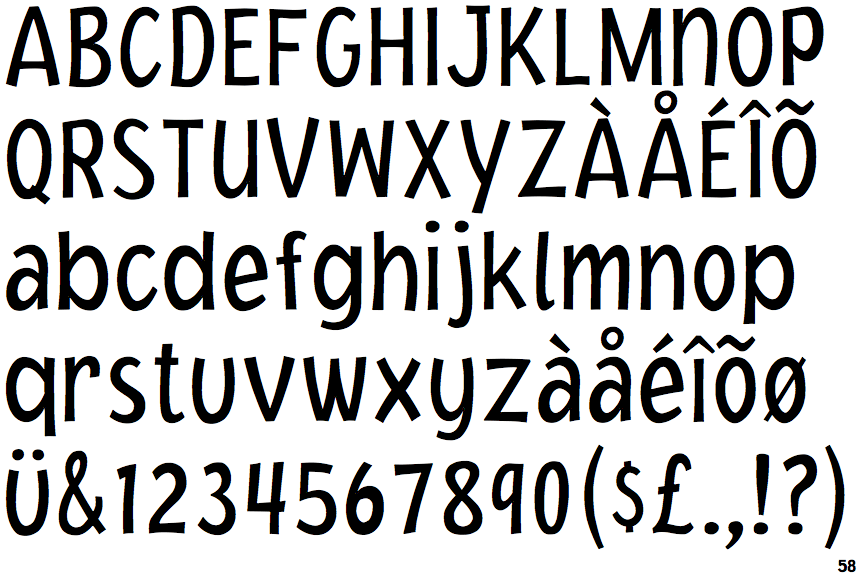
Jacoby Black Font
Jacoby Black Font - Discover the free jacoby icg black font at free font download ! Ideal for children's books, playful branding, posters, and informal invitations. Jacoby contains 12 styles and family package options. Download free and premium fonts. Davison and published by monotype. Installable on pc, mac, linux, ios, and android platforms. This font features bold, playful characters with a. Download jacoby icg black font. Fontsplace is the best place to download jacoby icg black for free. A bold and playful font with thick, irregular strokes.
Discover the free jacoby icg black font at free font download ! Jacoby contains 12 styles and family package options. Installable on pc, mac, linux, ios, and android platforms. Download free and premium fonts. This font features bold, playful characters with a. A bold and playful font with thick, irregular strokes. Fontsplace is the best place to download jacoby icg black for free. Davison and published by monotype. Download jacoby icg black font. Jacoby font family was designed by calvin glenn, m.
Discover the free jacoby icg black font at free font download ! Download jacoby icg black font. Jacoby contains 12 styles and family package options. A bold and playful font with thick, irregular strokes. This font features bold, playful characters with a. Fontsplace is the best place to download jacoby icg black for free. Download free and premium fonts. Ideal for children's books, playful branding, posters, and informal invitations. Installable on pc, mac, linux, ios, and android platforms. Davison and published by monotype.
Download free and premium fonts. This font features bold, playful characters with a. Jacoby contains 12 styles and family package options. Ideal for children's books, playful branding, posters, and informal invitations. Jacoby font family was designed by calvin glenn, m.
Davison and published by monotype. Jacoby font family was designed by calvin glenn, m. A bold and playful font with thick, irregular strokes. Ideal for children's books, playful branding, posters, and informal invitations. Download free and premium fonts.
Installable on pc, mac, linux, ios, and android platforms. A bold and playful font with thick, irregular strokes. Davison and published by monotype. Download free and premium fonts. Jacoby font family was designed by calvin glenn, m.
Installable on pc, mac, linux, ios, and android platforms. Ideal for children's books, playful branding, posters, and informal invitations. This font features bold, playful characters with a. Jacoby font family was designed by calvin glenn, m. Jacoby contains 12 styles and family package options.
Installable on pc, mac, linux, ios, and android platforms. Download free and premium fonts. A bold and playful font with thick, irregular strokes. Discover the free jacoby icg black font at free font download ! This font features bold, playful characters with a.
Jacoby font family was designed by calvin glenn, m. A bold and playful font with thick, irregular strokes. This font features bold, playful characters with a. Discover the free jacoby icg black font at free font download ! Ideal for children's books, playful branding, posters, and informal invitations.
Discover the free jacoby icg black font at free font download ! Fontsplace is the best place to download jacoby icg black for free. A bold and playful font with thick, irregular strokes. This font features bold, playful characters with a. Installable on pc, mac, linux, ios, and android platforms.
Jacoby Contains 12 Styles And Family Package Options.
Download free and premium fonts. This font features bold, playful characters with a. Ideal for children's books, playful branding, posters, and informal invitations. Discover the free jacoby icg black font at free font download !